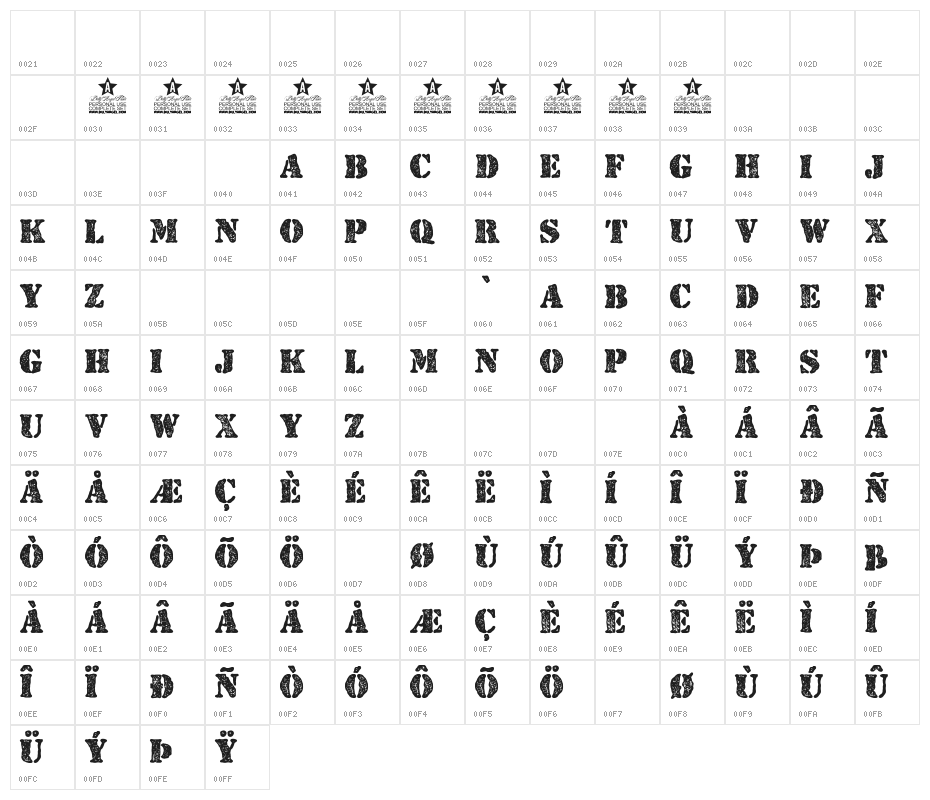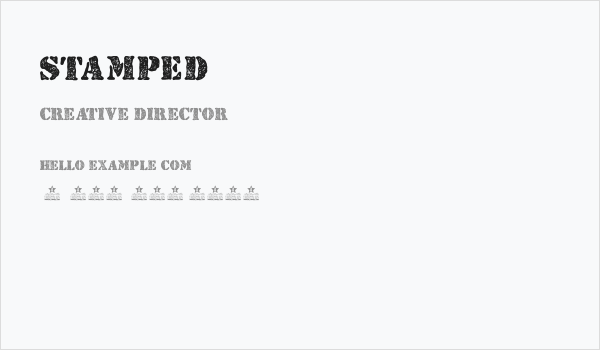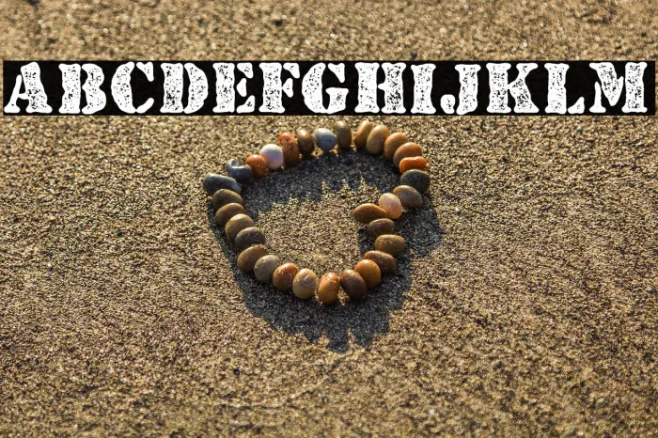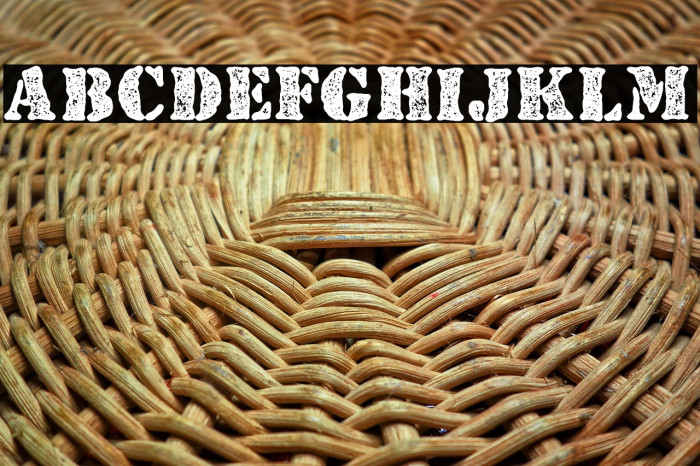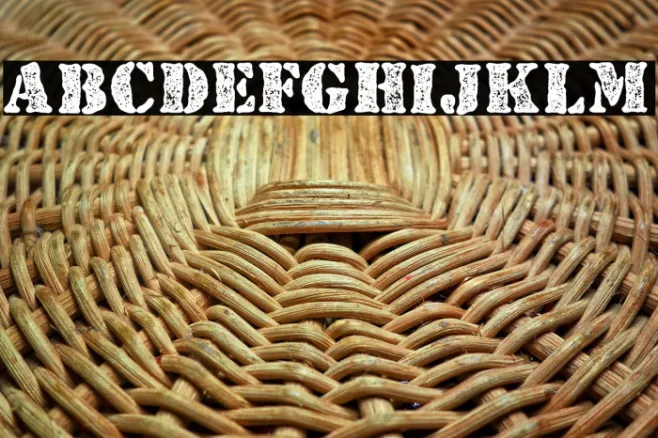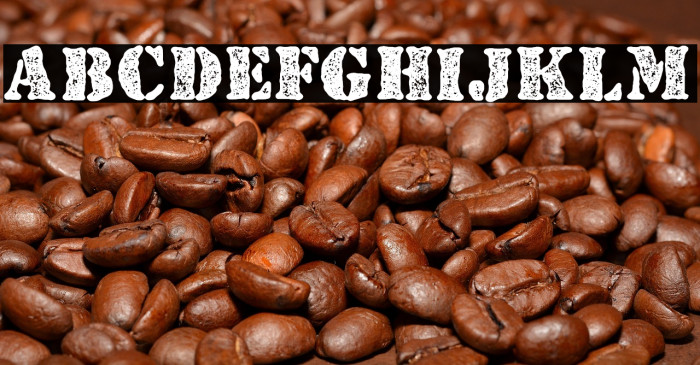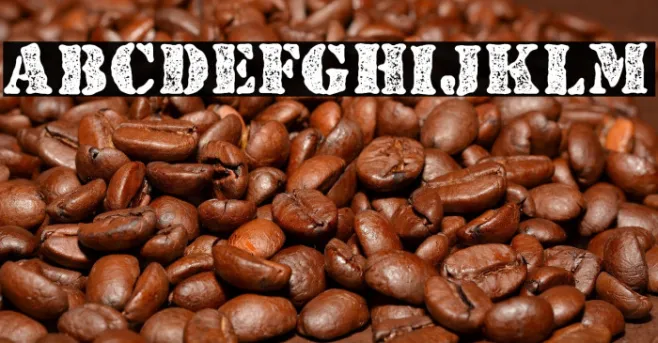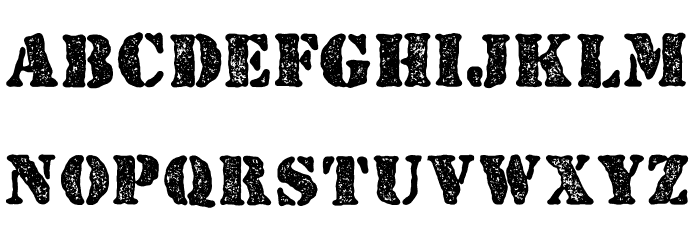
STAMPED Font
STAMPED Description
This font features a bold, distressed style that mimics the appearance of stamped or worn lettering. Each character is designed with a rough texture, giving it a rugged and vintage feel. The uppercase letters are prominent and eye-catching, making them suitable for impactful designs. The font's unique texture adds a layer of depth and character, making it ideal for projects that require a rustic or industrial aesthetic. Its boldness ensures readability while maintaining a distinct personality.
| Proposed Projects | Ideal for posters, logos, branding, and any design needing a vintage or industrial touch. |